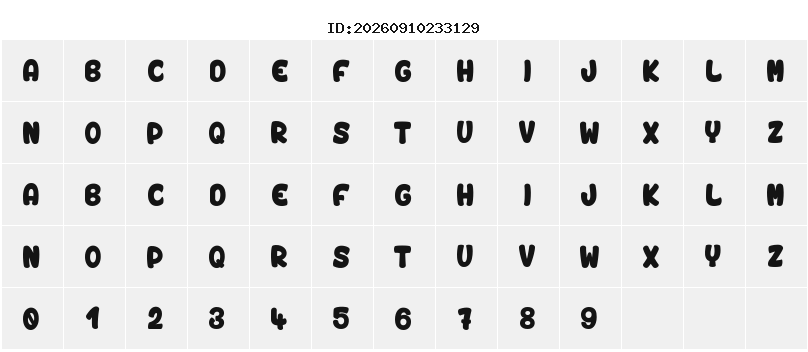
Vinegar Stroke Preview
• Font Name: Vinegar Stroke
• Full Font Name: Vinegar Stroke
• Designer: dcoxy Medina Gregory
• Manufacturer: dcoxy Medina Gregory
About Vinegar Stroke.ttf
Vinegar Stroke.ttf is a modern, elegant sans-serif font designed for ultimate readability and visual harmony. Perfect for branding, headlines, web design, and print materials.